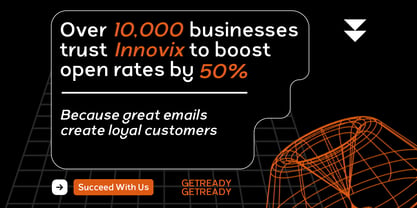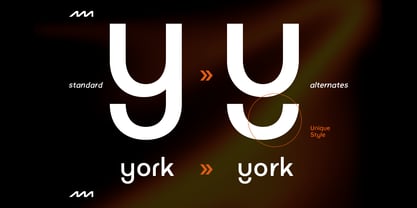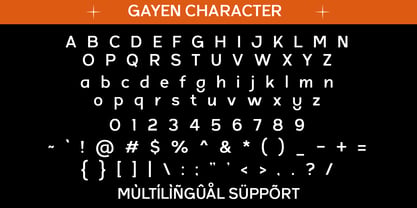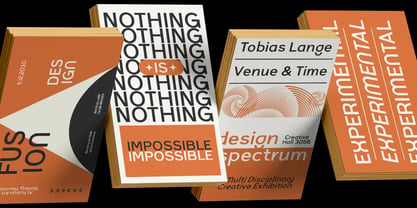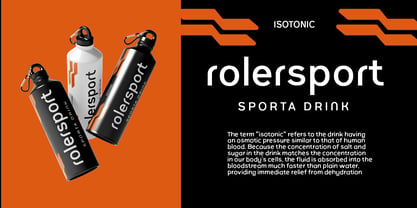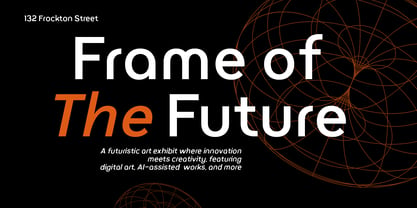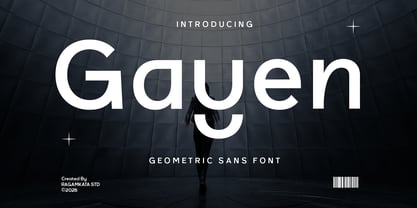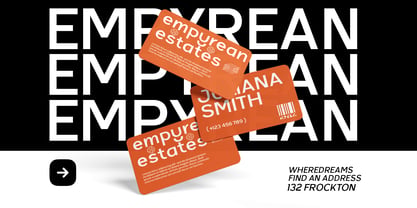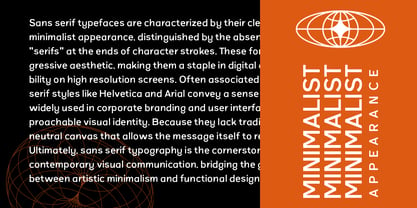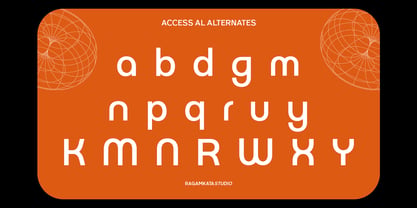
Gayen
by RagamKata
The Gayen Font Family was designed by Yogiswhara Dio Prakoso Riadi and published by RagamKata. Gayen contains 2 styles and family package options. More about this family
Gayen is a modern geometric sans serif font designed to convey clarity, strength, and futuristic elegance in every project. With its clean structures, balanced proportions, and smooth curves, Gayen provides a powerful contemporary appearance that is both bold and minimal. The precise geometry and refined spacing establish a professional typographic system ideal for high-impact visual communication in both digital and print media. Versatile in nature, Gayen excels in various applications, including branding, logo design, UI/UX interfaces, web design, editorial layouts, social media content, advertising campaigns, and technology-focused projects. Its geometric foundation guarantees excellent readability while preserving a modern and progressive aesthetic. Whether utilized for startup branding, tech product visuals, corporate identities, or creative portfolios, Gayen seamlessly adapts to diverse design environments. With its sleek form and clean character design, Gayen empowers designers to establish confident visual hierarchies, bold headlines, and refined typographic compositions. From futuristic layouts to minimalist branding systems, Gayen offers flexibility, consistency, and modern sophistication, making it an exceptional choice for designers in search of a contemporary geometric sans serif font that performs effectively across all platforms. Thank You! Ragamkata